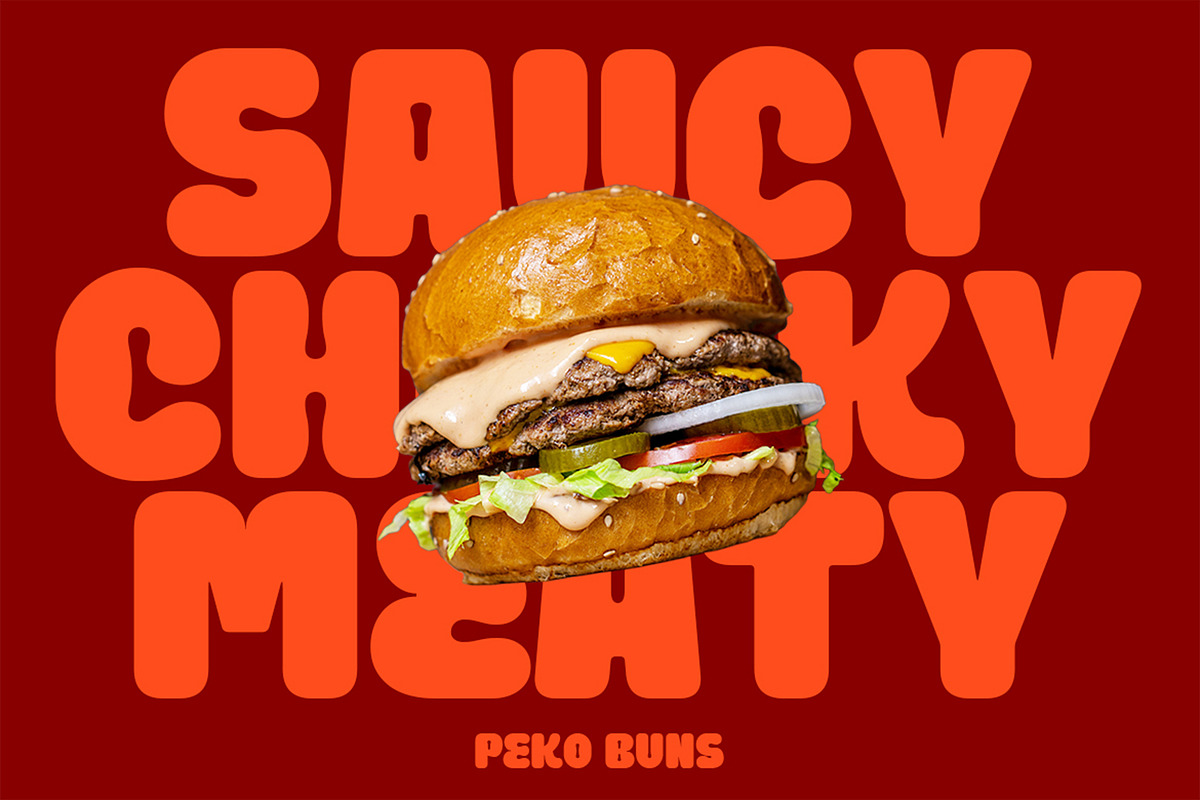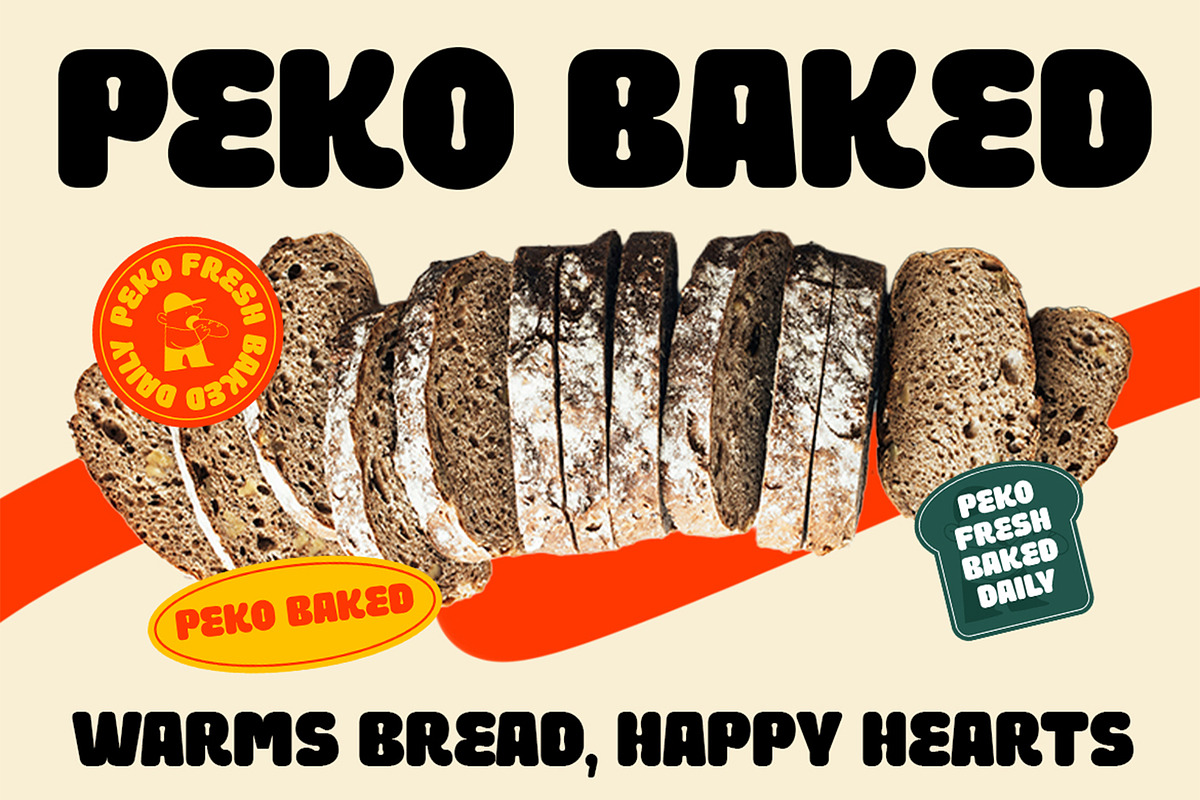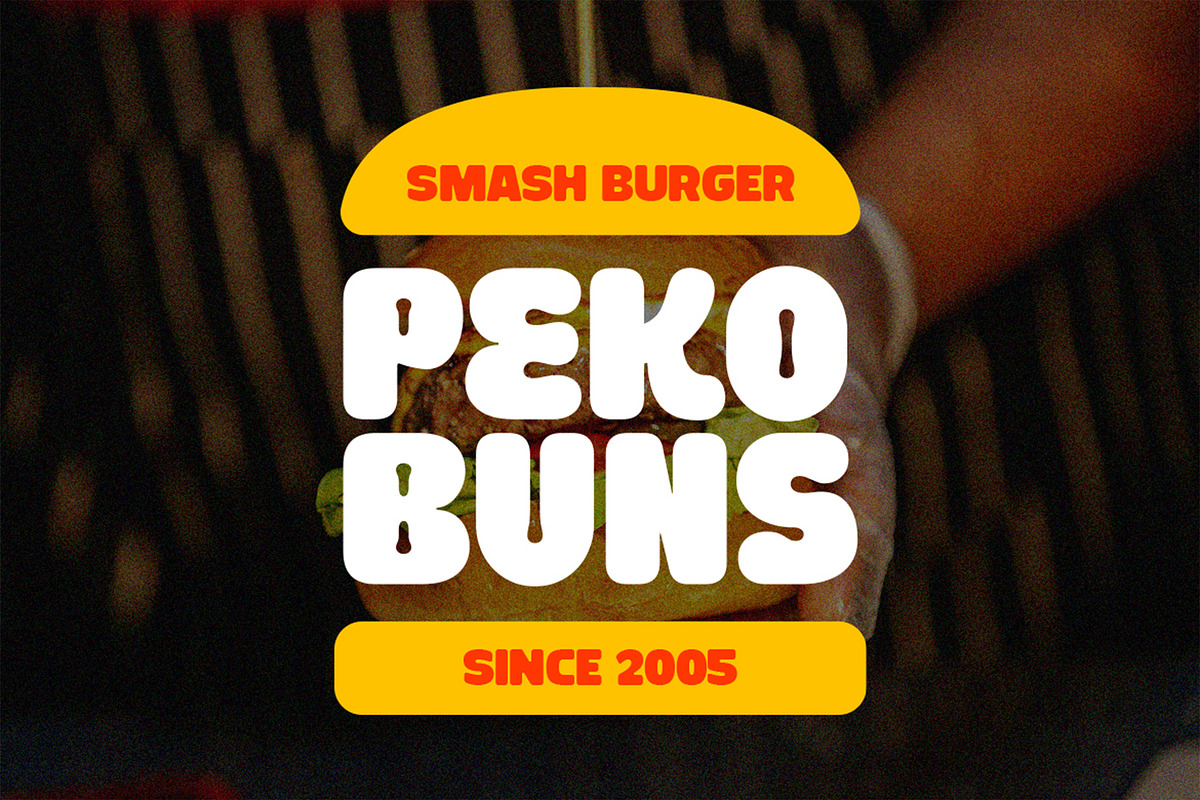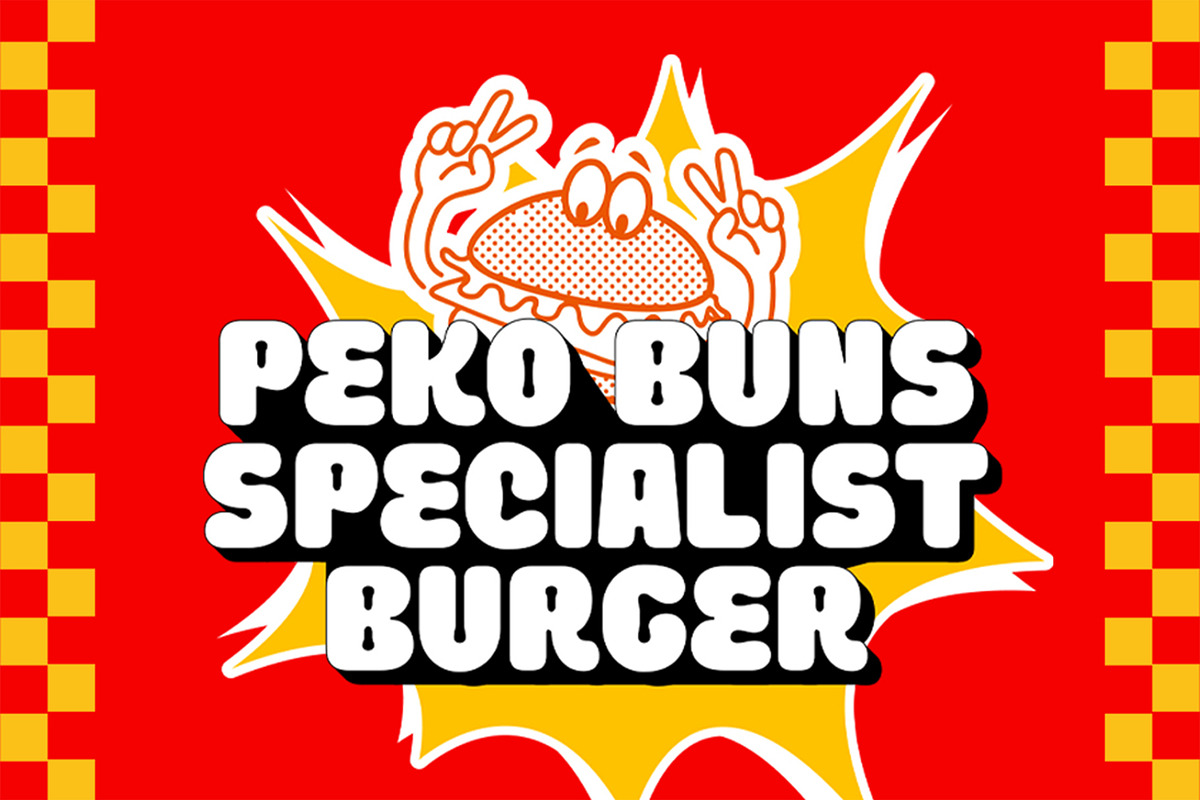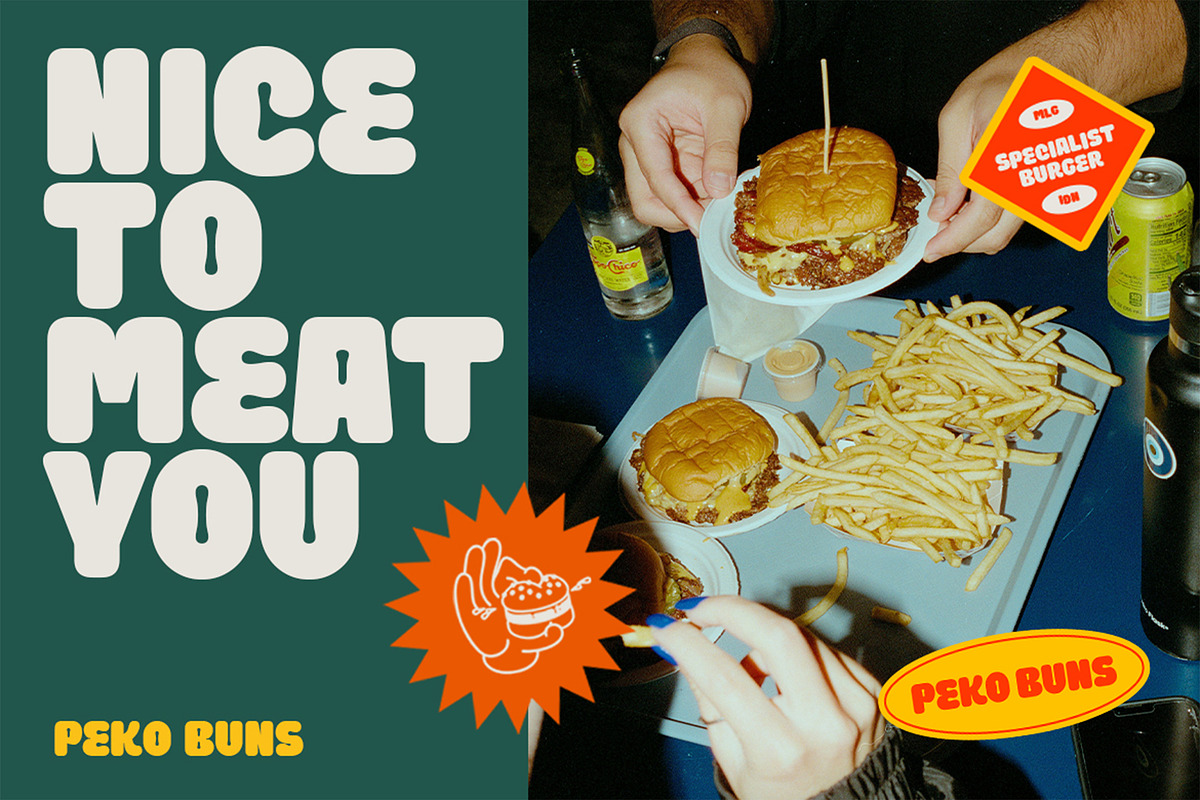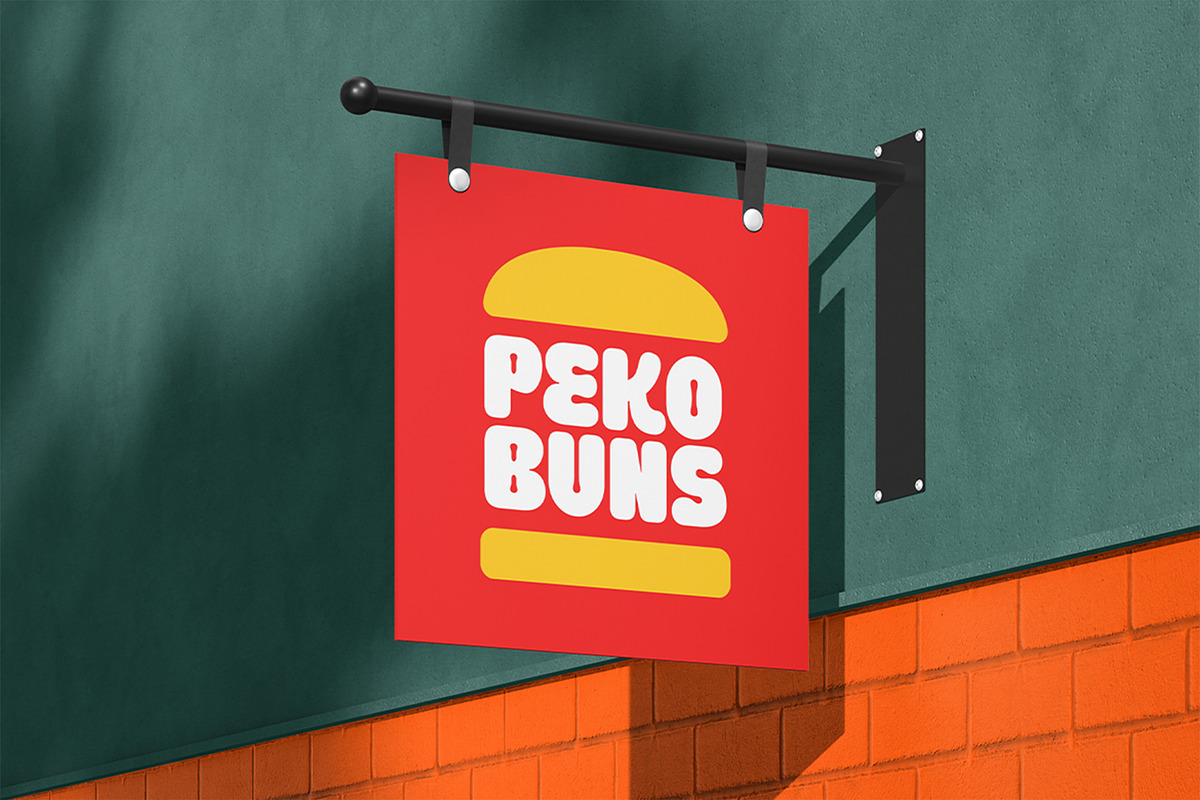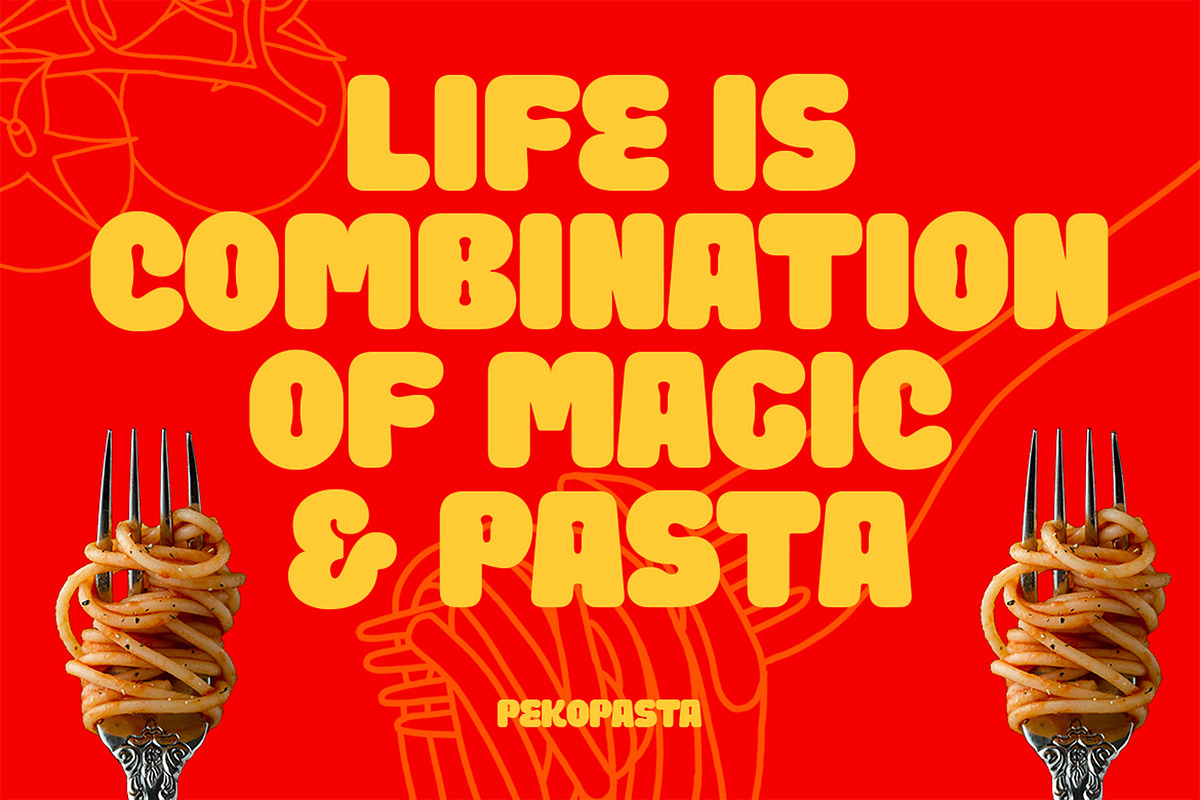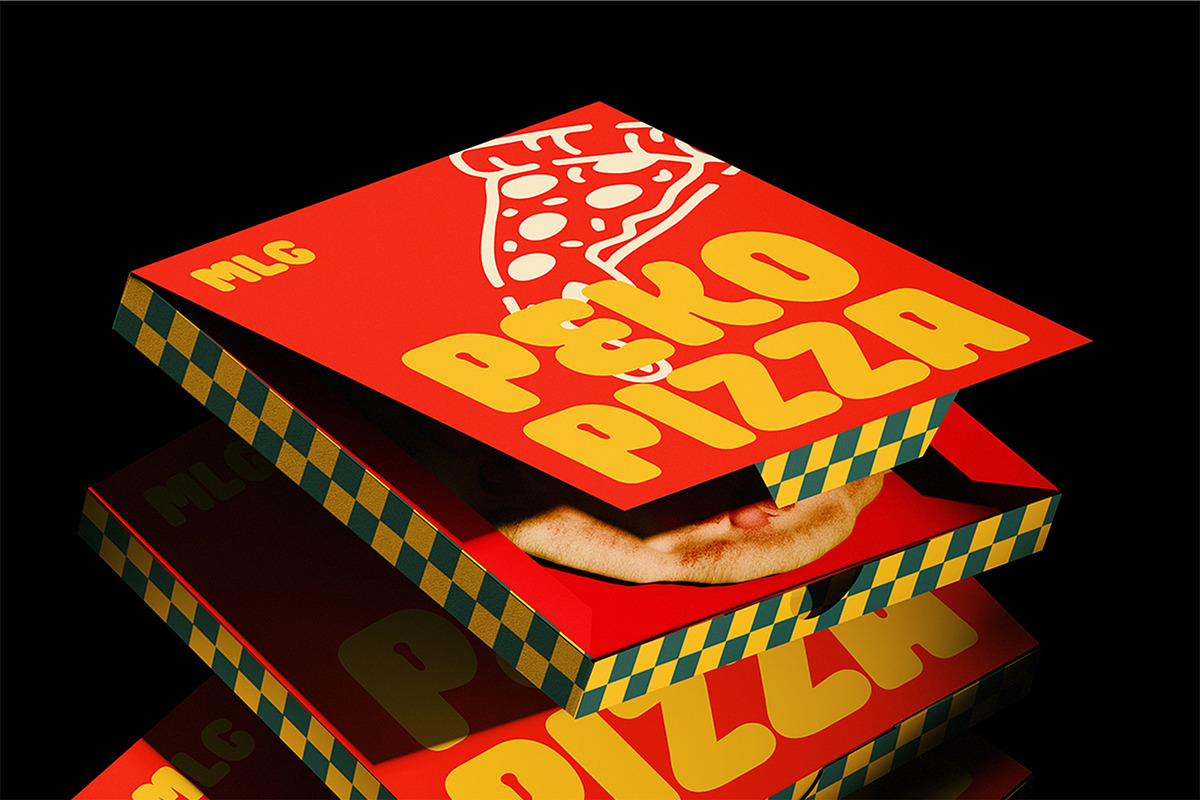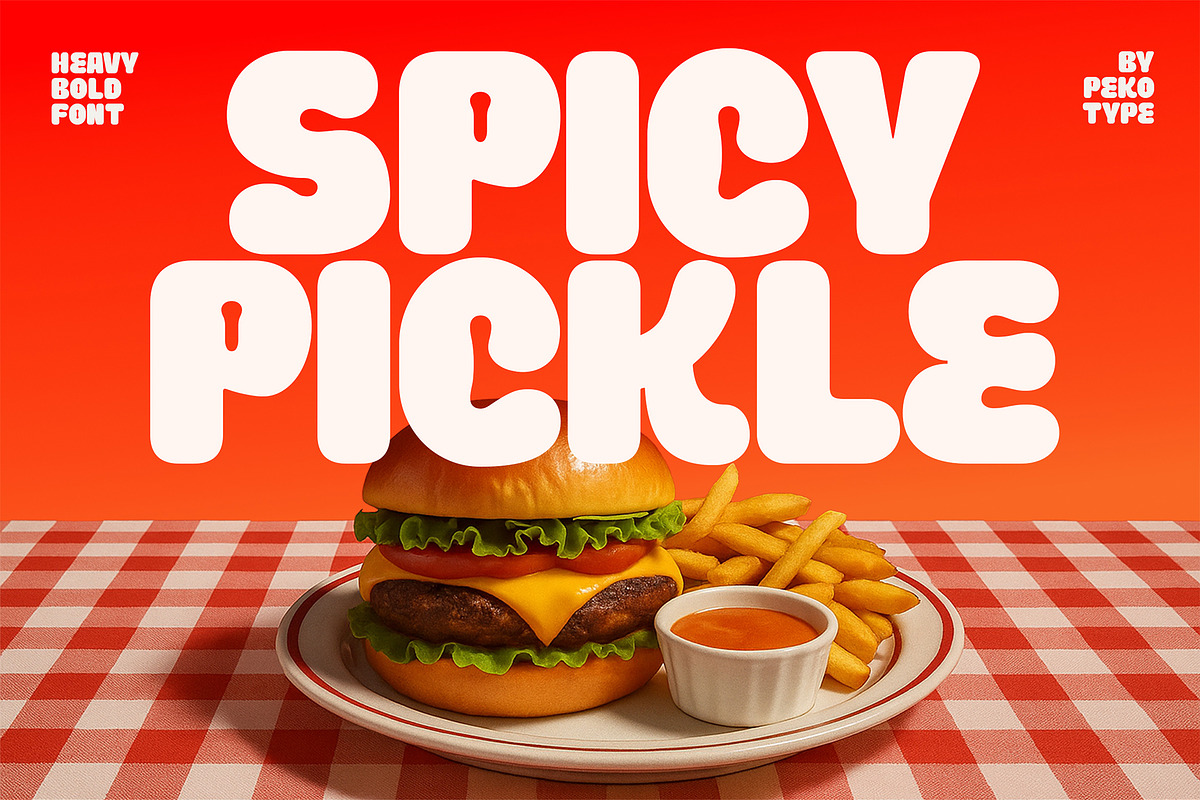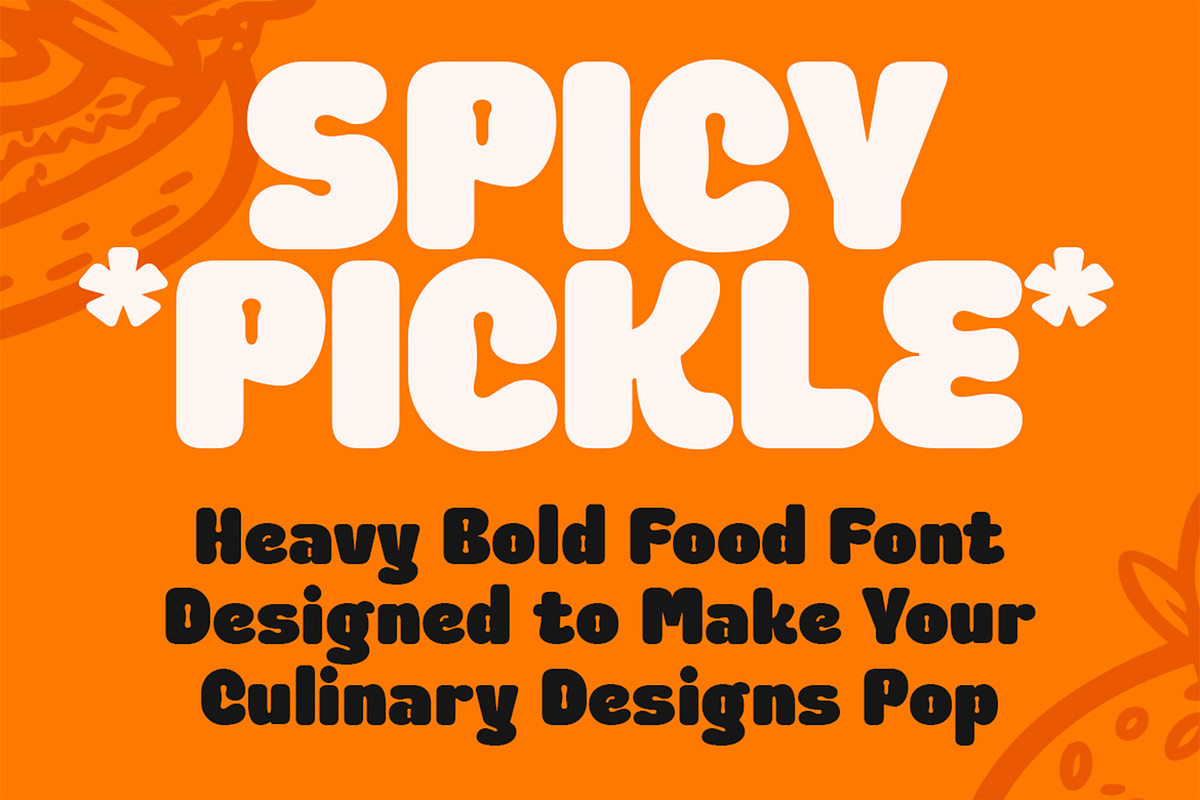
SPICY PICKLE – Food Display Font
SPICY PICKLE – Bold Food Display Font
Turn up the flavor in your designs with Spicy Pickle, a bold and playful display font made to grab attention. With its chunky and heavy letterforms, this font is perfect for creating designs that stand out and leave a lasting impression.
Designed especially for the food & beverage industry, Spicy Pickle is the ideal choice for restaurant branding, logos, packaging, menus, marketing campaigns, posters, and social media promotions. Its fun yet powerful style makes every word pop, adding energy and character to your projects.